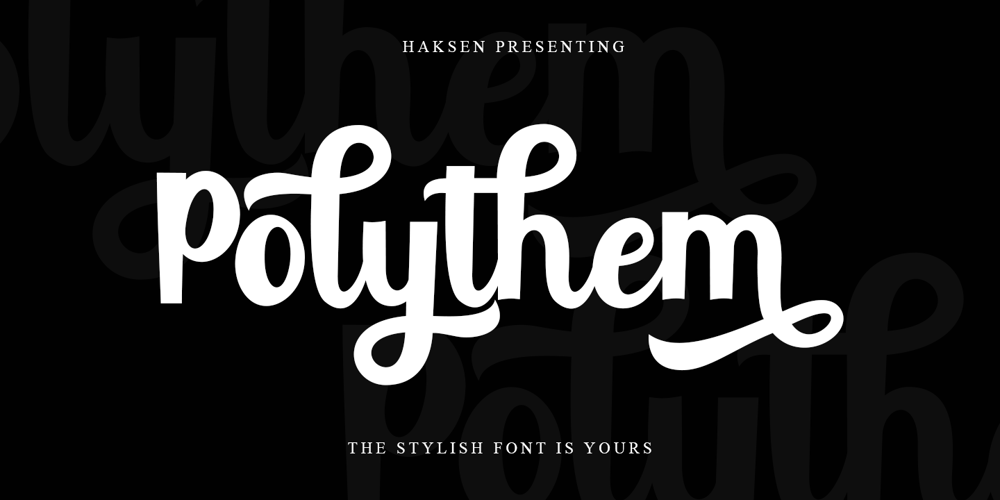
Polythem Font Family was designed by Sarwo Edhi Prayitno and published by Haksen. Polythem contains 1 styles and family package options. “Polythem” is a beautiful high bold script font that makes for gorgeous logos, posters, wedding invitations, blog posts, social media, and more!Polythem Script includes ligatures to make everything look totally hand-done, and alternates for each letter. Thanks for visited